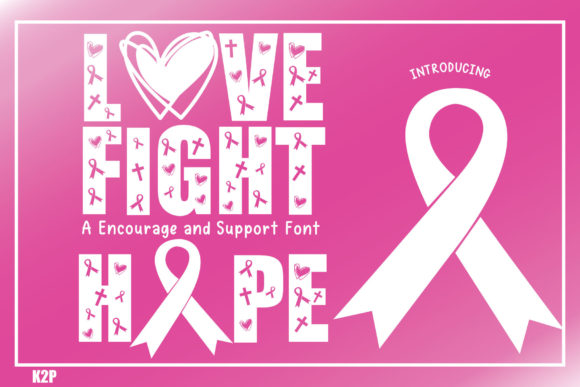
Introducing the Love Fight Hope font family, a stunning display font created by KtwoP, designed to capture the essence of strength, courage, and unity in the face of adversity. Each thick, bold letter exudes resilience and unwavering determination, making it the perfect choice for conveying powerful messages of support and solidarity.
With Love Fight Hope, your designs will speak louder than words. Its unique, decorative style adds a captivating touch to any project, whether it's a heartfelt poster expressing empathy for those battling cancer, a motivational quote reminding us to never give up, or a social media campaign raising awareness for a meaningful cause.
This font is more than just a collection of letters; it's a symbol of hope, a beacon of light in the darkest of times. Its PUA encoding ensures easy access to all glyphs and swashes, providing endless possibilities for creative expression.
Embrace the power of typography and let Love Fight Hope elevate your designs to new heights. Ignite passion, inspire change, and make a difference with every word you display. Choose Love Fight Hope and your message will resonate, leaving an unforgettable impact on the hearts and minds of your audience.